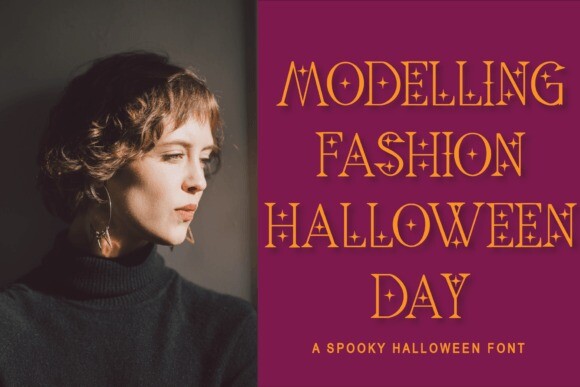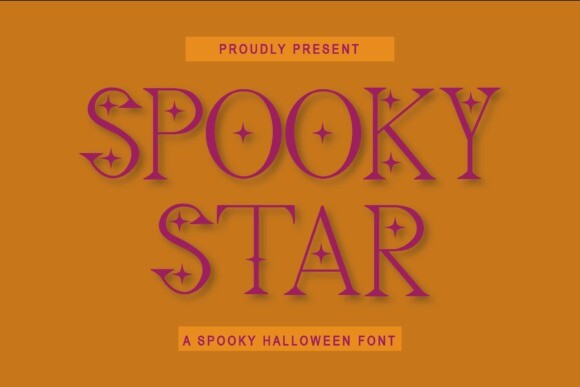
Spooky Star Font
Spooky Star Font, the quintessential Halloween-inspired font designed to instill a touch of mystery and drama into your October projects. This font weaves chilling yet enchanting narratives, making it an ideal choice for captivating Halloween party invites or bewitching web graphics. Immerse yourself in the spirit of All Hallows’ Eve, bedecking your decorations with Spooky Star, a font that’s dripping with ghoulish charm.